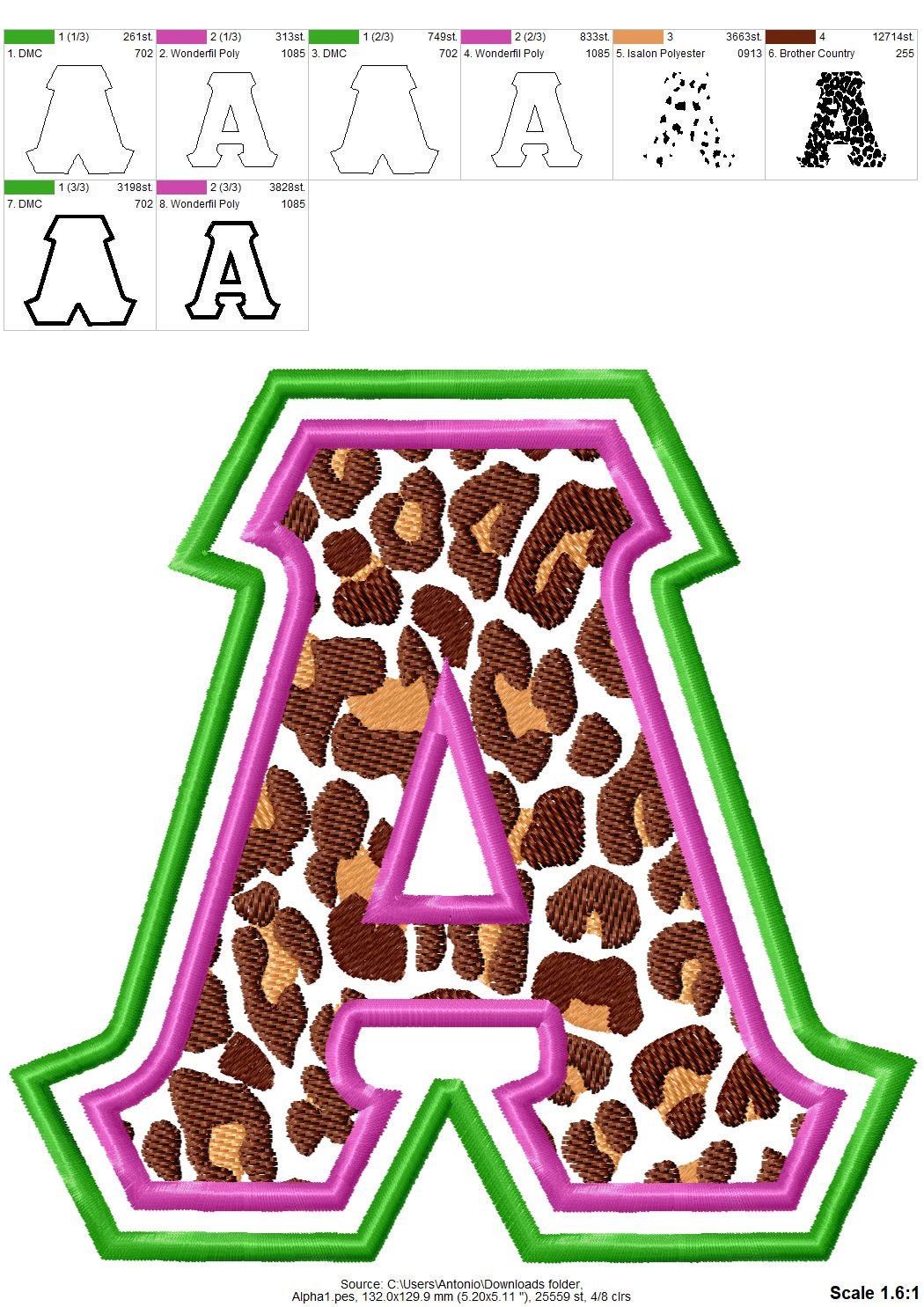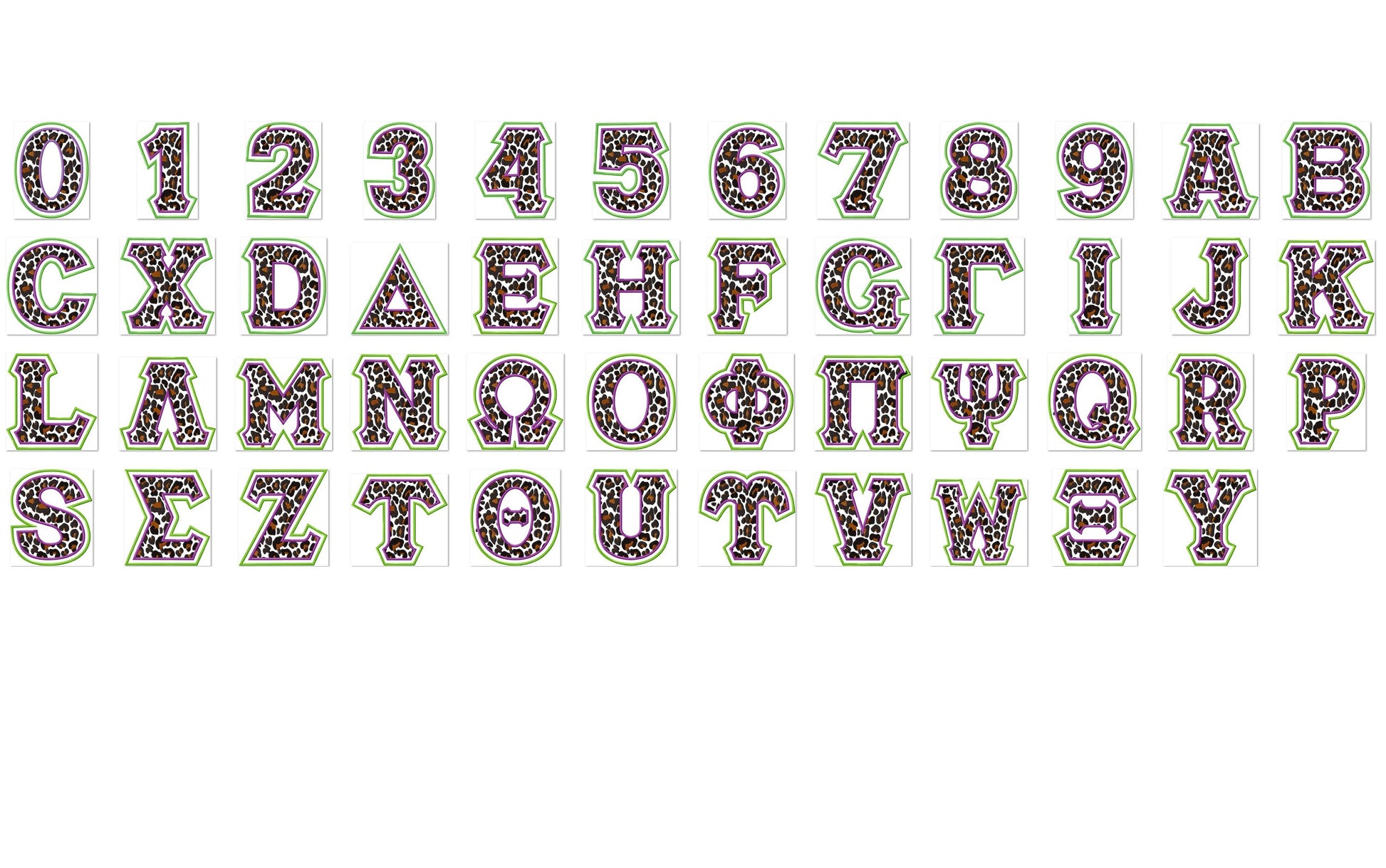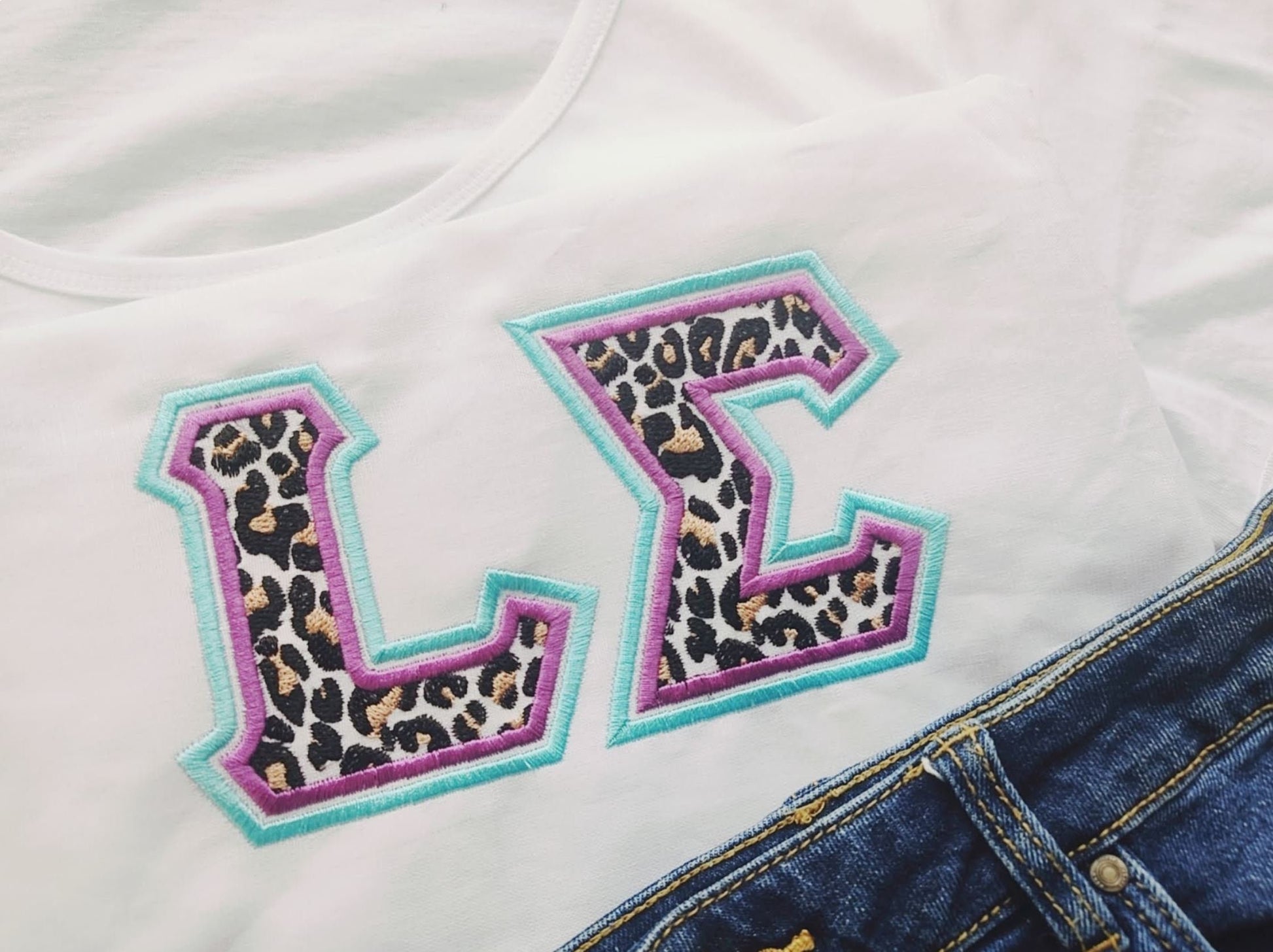
Or click to open the linkClassic sororities Greek alphabet leopard print Greek font, alphabet, ABC, letters 2 layers colors Greek font machine embroidery applique
Letters are 2 steps classic applique
Leopard print is a part of the embroidery